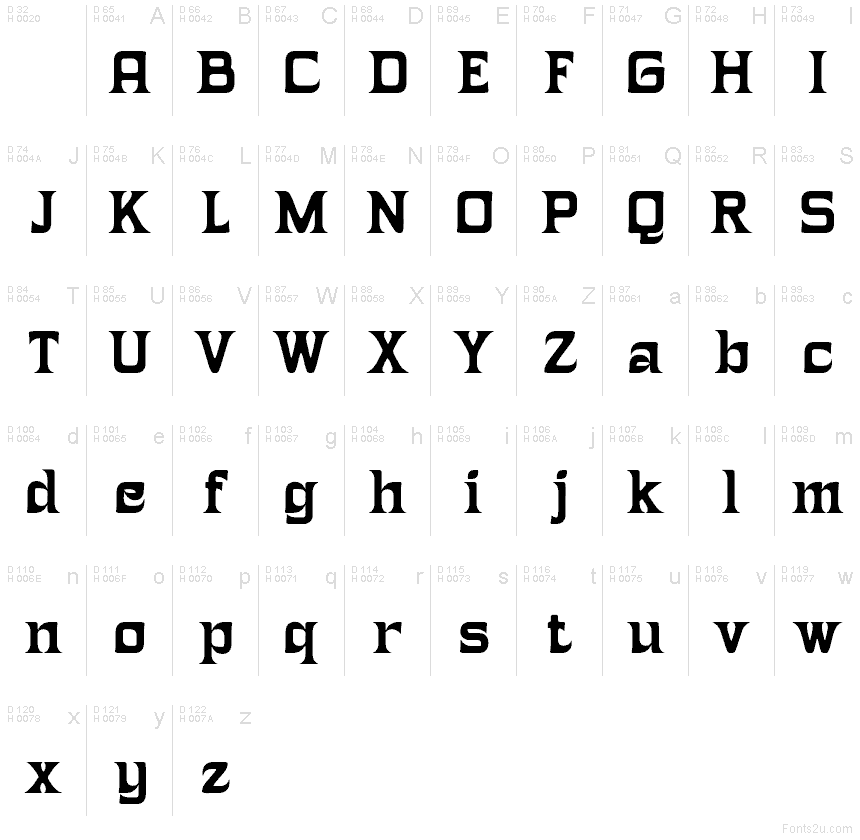
CSMasonDrawn-Regular Demo
CS Mason Drawn font by Craft Supply Co. combines elegance and robustness into a vintage-inspired design with a strong presence. This free display font seamlessly integrates decorative elements to achieve uniqueness all-around every character, granting artists and audiences an unforgettable experience.